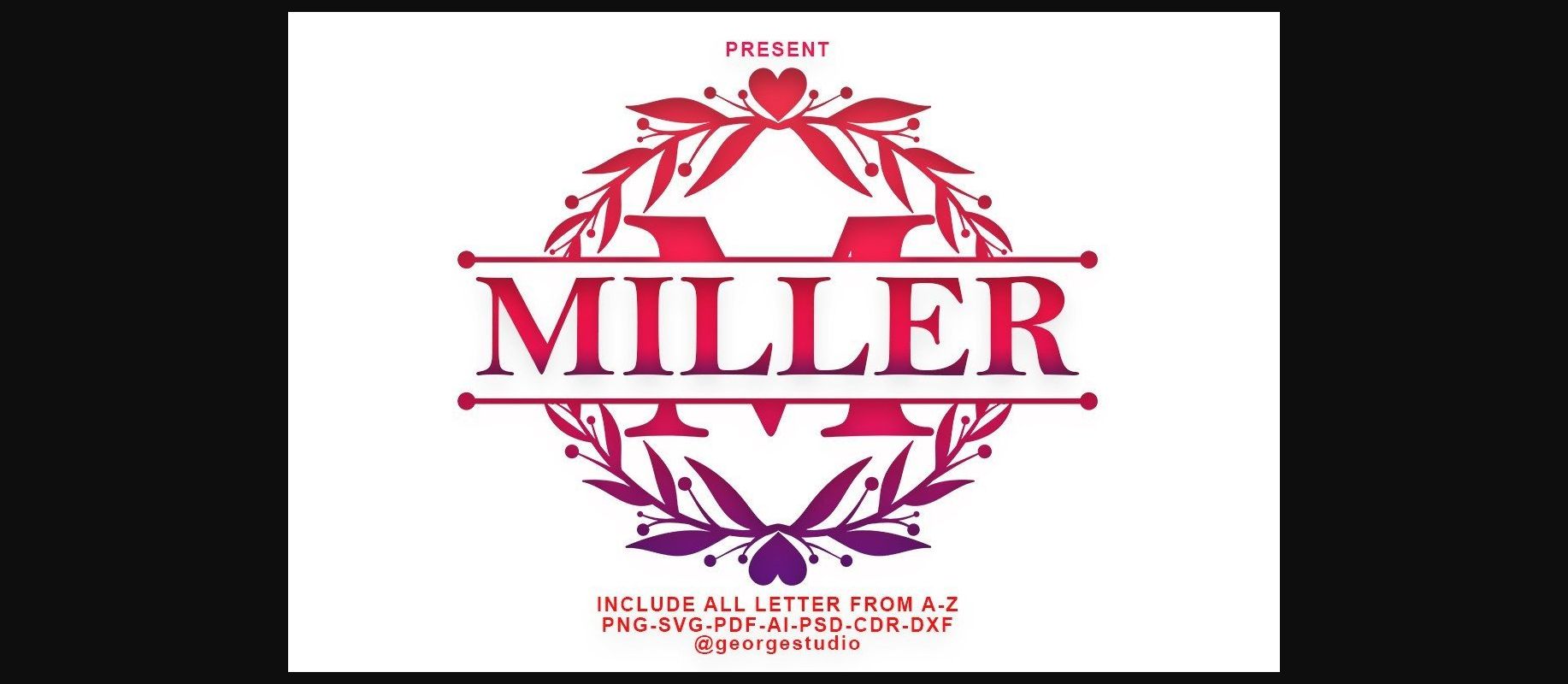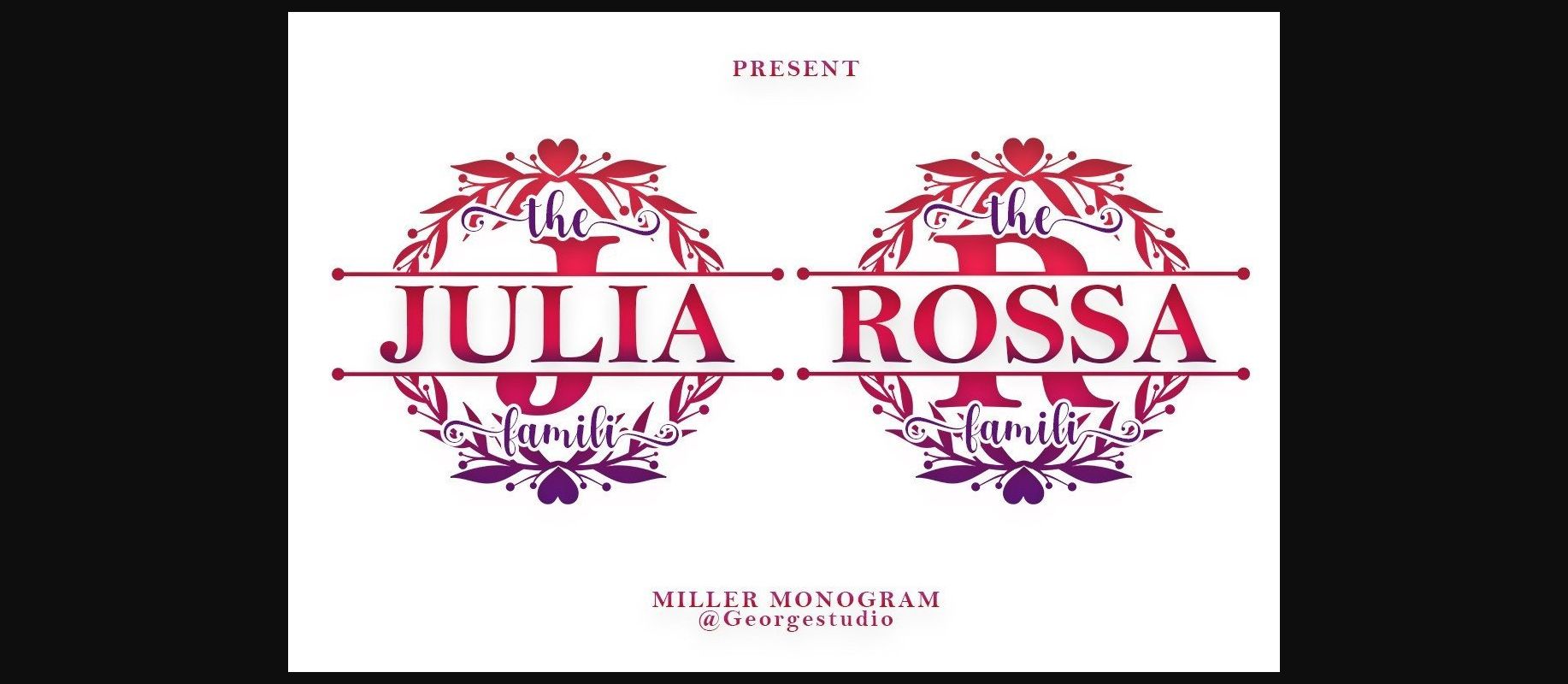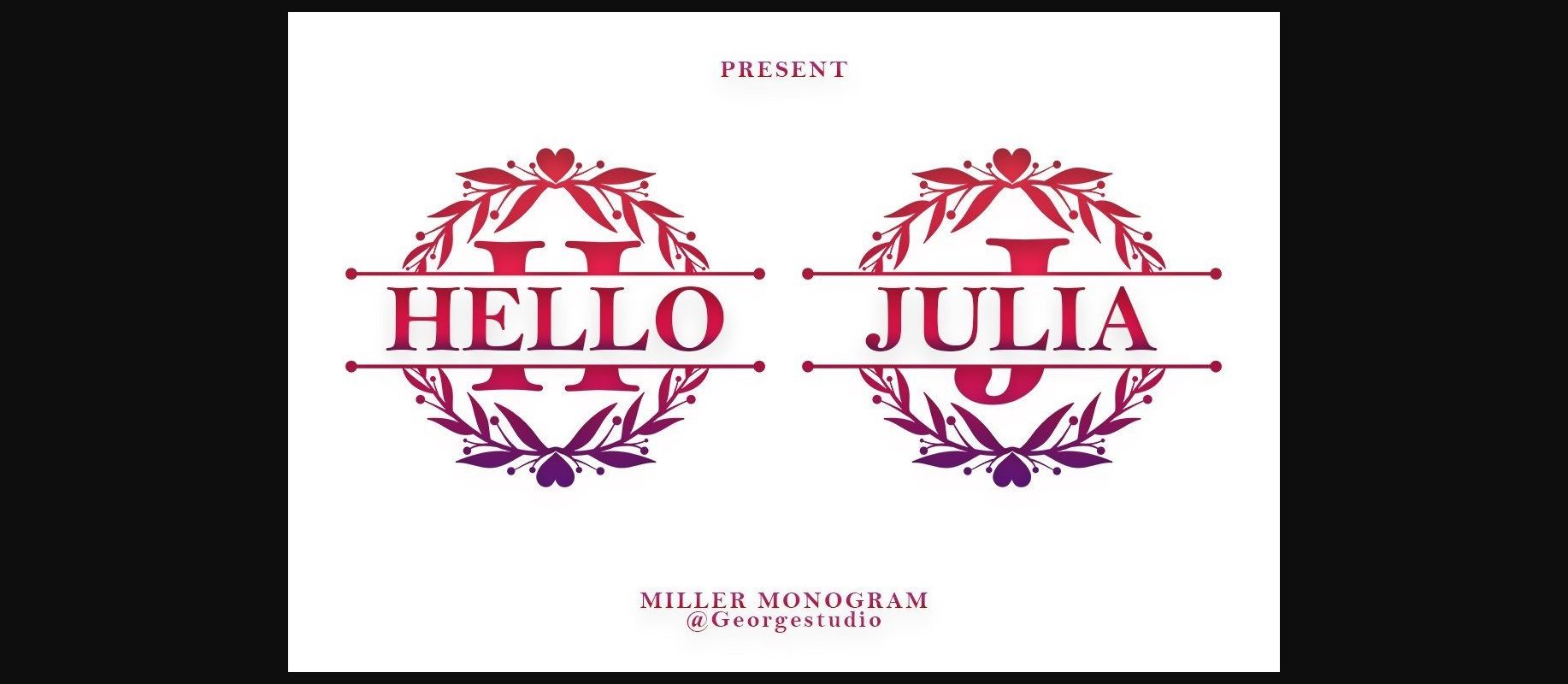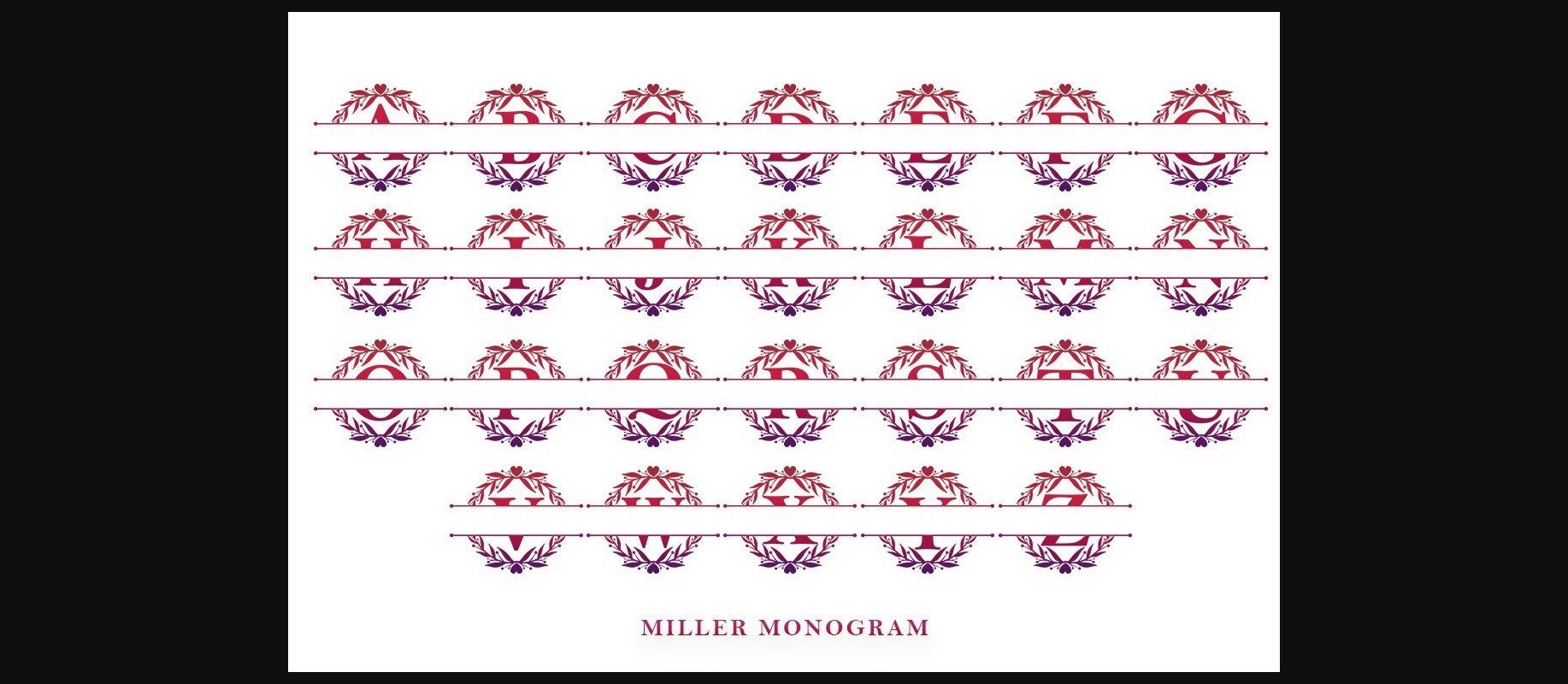
About Miller Font
Miller is a sweet monogram decorative font. Fall in love with its authentic feel and use it to create gorgeous wedding invitations, beautiful stationary art, eye-catching social media posts, and cute greeting cards.